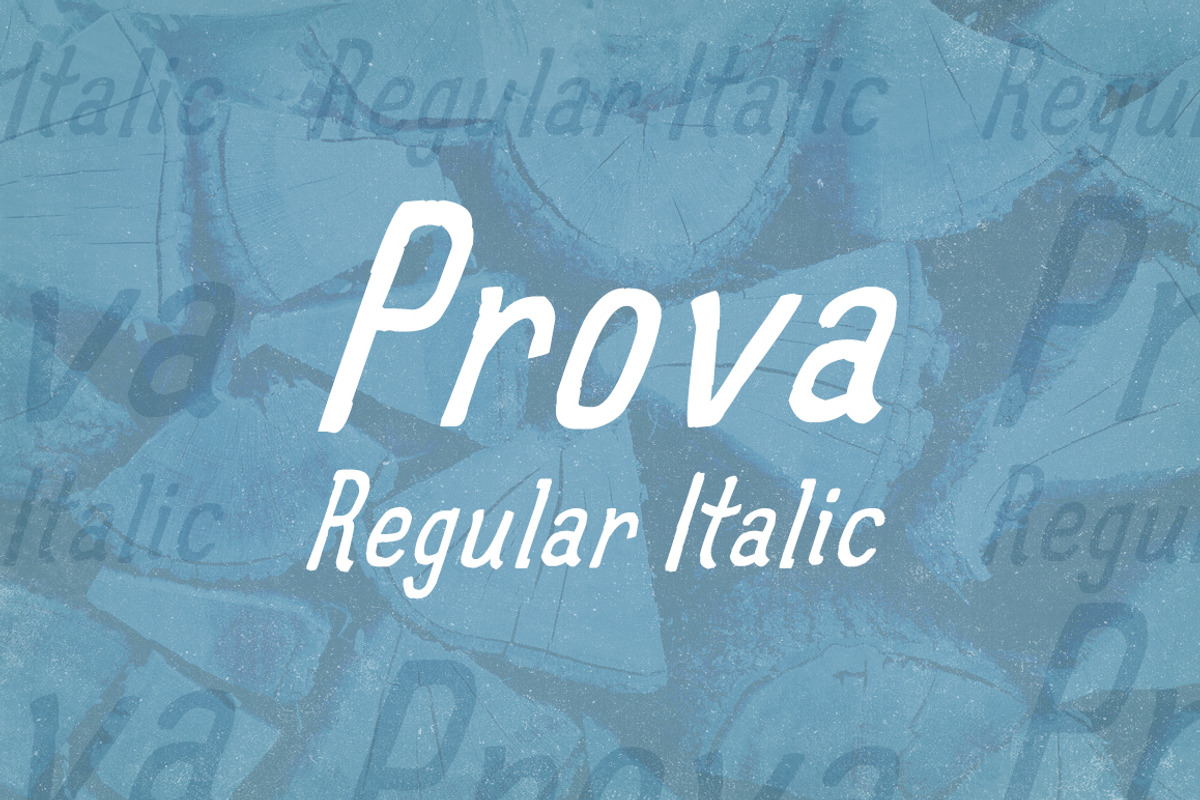
Prova Regular & Regular Italic
Prova is a friendly, condensed hand-drawn typeface created to compliment playful illustration work, and this product is the Regular and Regular Italic fonts within the overall Prova family.
The word Prova means "test" in Italian and "proof" in Portuguese, and was chosen to commemorate my first official typeface. Prova started from tight sketches and evolved into a full, international character set. The primary intention was to create charming hand-drawn letters that could function as a hand-drawn workhorse font to compliment illustration and interactive work.